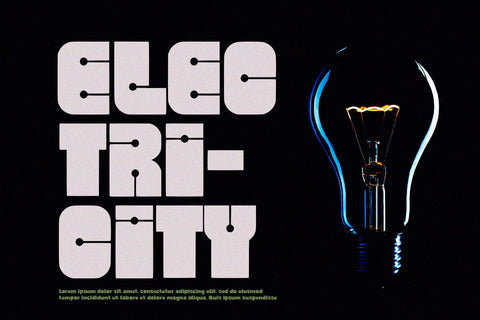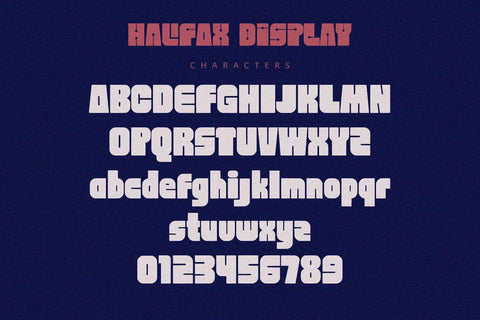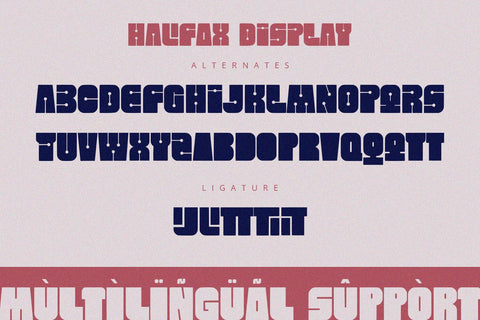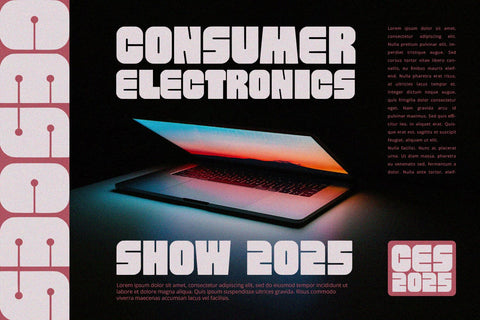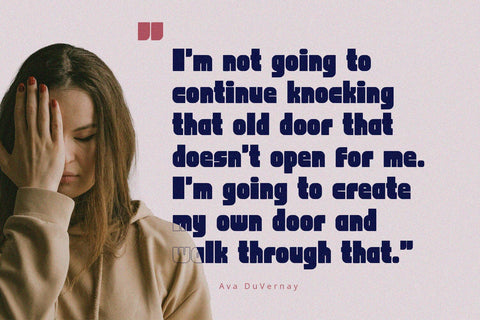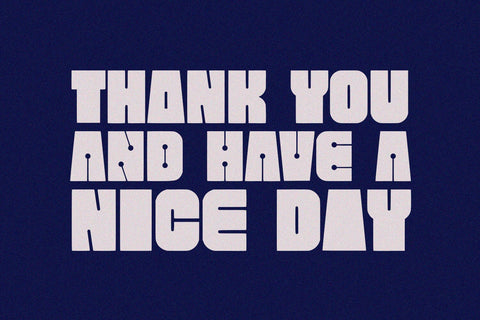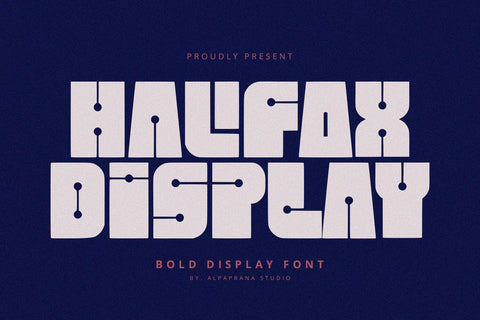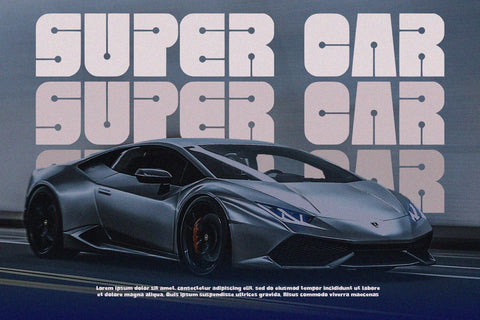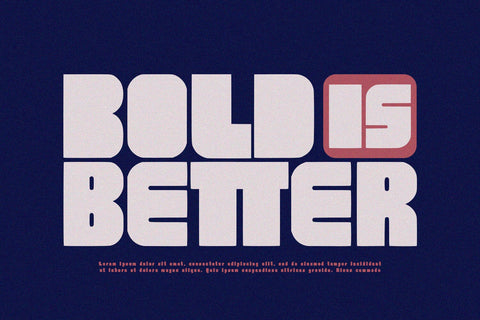
Halifax Display Font
Halifax Display is display font with modern and futuristic feels. It will be perfectly used for Branding, Logo Design, Lettering, Logotype, Clothing, Poster, magazine, packaging, posters, shopping bags, t-shirts, book covers, photography, special events and other design project.